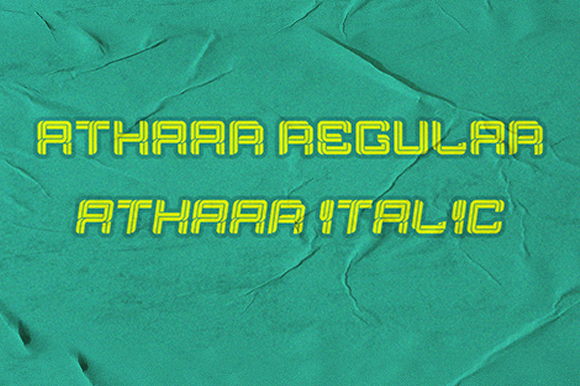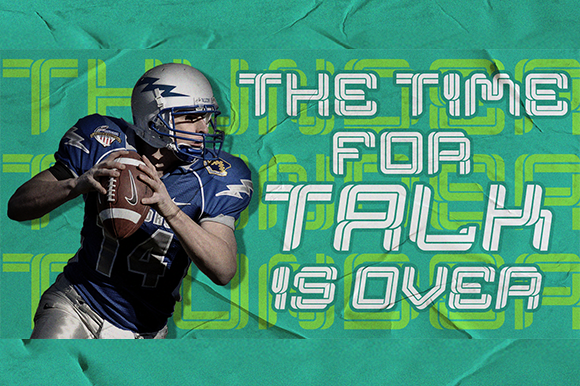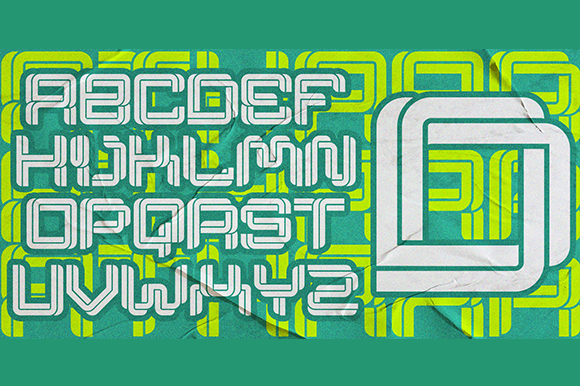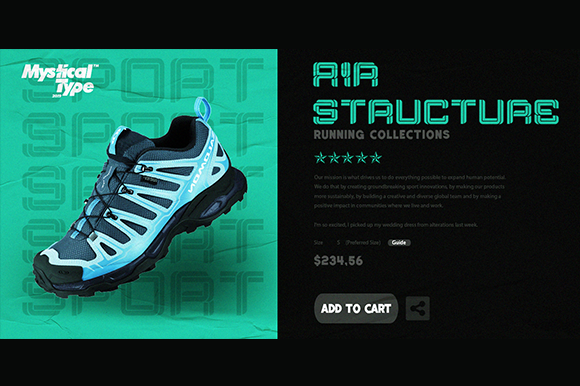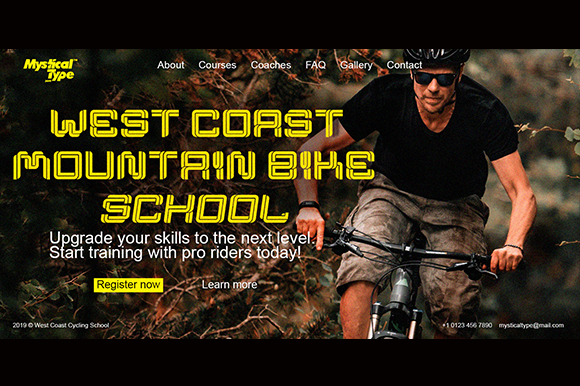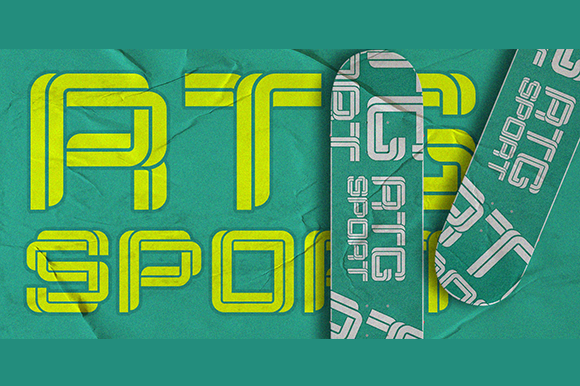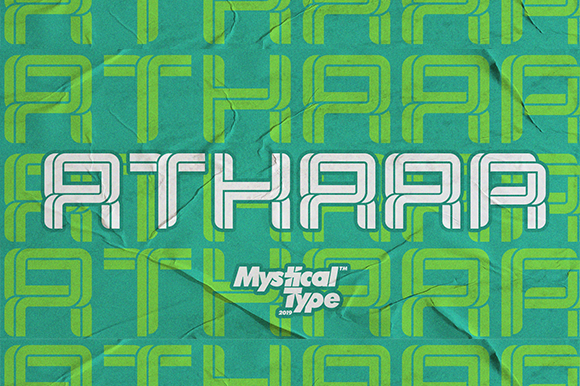
Athaar Font: The Ultimate Bold and Sporty Sans Serif Font for Designers
In the world of typography, fonts play a crucial role in conveying messages, expressing emotions, and creating visual identities. For designers and crafters, finding the perfect font can be a daunting task, especially when it comes to creating bold and eye-catching designs. This is where Athaar Font comes in – a bold and sporty sans serif font that is carefully handcrafted to become a true favorite among designers.
What Makes Athaar Font Stand Out?
Athaar Font is a stunning sans serif font that boasts a unique and sporty aesthetic. Its bold and clean lines make it perfect for use in a variety of design contexts, from busy backgrounds to standalone headlines. The font’s versatility is one of its standout features, allowing designers to experiment with different styles and applications.
One of the key benefits of Athaar Font is its exceptional legibility. Even at smaller font sizes, the text remains clear and easy to read, making it ideal for use in body text, titles, and headings. The font’s sporty vibe also makes it perfect for designs that require a dynamic and energetic feel, such as sports branding, fitness websites, and outdoor-inspired marketing materials.
Key Features of Athaar Font
• Bold and Sporty Design: Athaar Font features a bold and sporty sans serif design that is perfect for creating eye-catching headlines and titles.
• Exceptional Legibility: The font’s clean lines and simple shapes ensure that it remains legible even at smaller font sizes.
• Versatile and Flexible: Athaar Font can be used in a variety of design contexts, from busy backgrounds to standalone headlines.
• Handcrafted with Love: The font is carefully handcrafted to ensure that every detail is meticulously designed and refined.
How to Use Athaar Font in Your Designs
Athaar Font is incredibly easy to use and can be incorporated into a wide range of design projects. Here are some ideas to get you started:
• Headlines and Titles: Use Athaar Font to create bold and eye-catching headlines and titles that grab attention and convey your message.
• Branding and Identity: The font’s sporty vibe makes it perfect for use in branding and identity designs, such as logos, business cards, and letterheads.
• Web Design: Athaar Font can be used to create stunning website headers, titles, and buttons that add a touch of sportiness to your web design.
• Print Design: The font is also suitable for use in print designs, such as brochures, flyers, and posters.
Why Designers and Crafters Love Athaar Font
Athaar Font has quickly become a favorite among designers and crafters due to its unique combination of style, versatility, and legibility. Here are some reasons why:
• Unique Design: The font’s bold and sporty design sets it apart from other sans serif fonts on the market.
• Easy to Use: Athaar Font is incredibly easy to use and can be incorporated into a wide range of design projects.
• High-Quality: The font is carefully handcrafted to ensure that every detail is meticulously designed and refined.
In conclusion, Athaar Font is a bold and sporty sans serif font that is perfect for designers and crafters looking to add a touch of style and energy to their designs. Its exceptional legibility, versatility, and unique design make it an excellent choice for a wide range of design projects. Whether you’re creating headlines, titles, or branding materials, Athaar Font is sure to become a true favorite in your design arsenal.